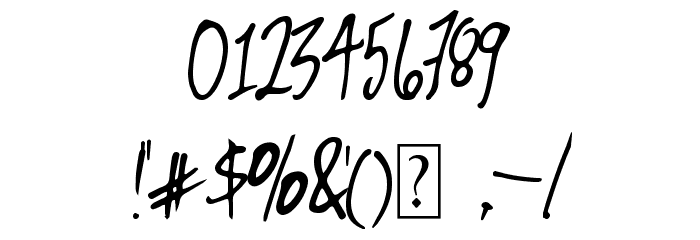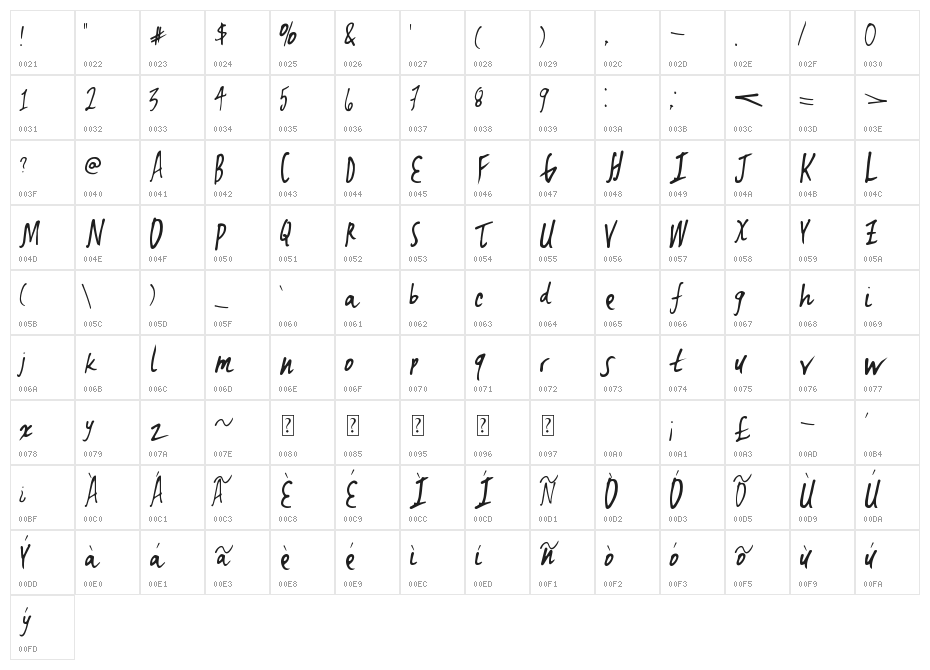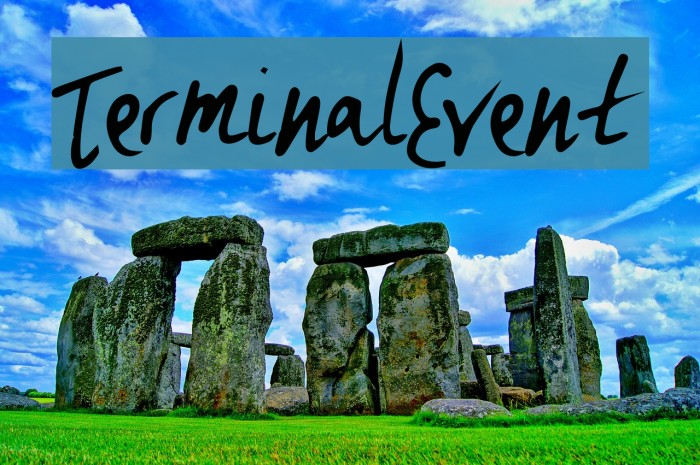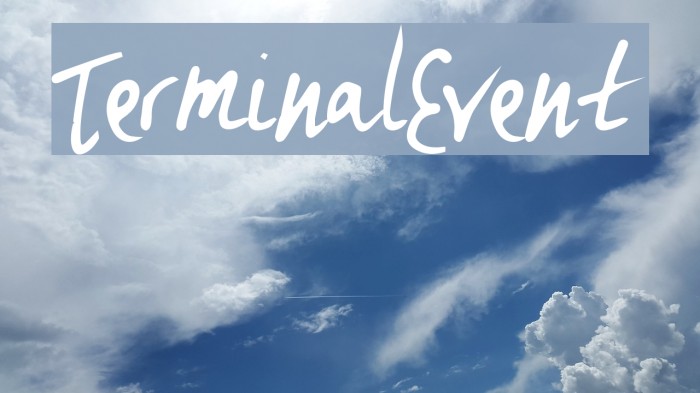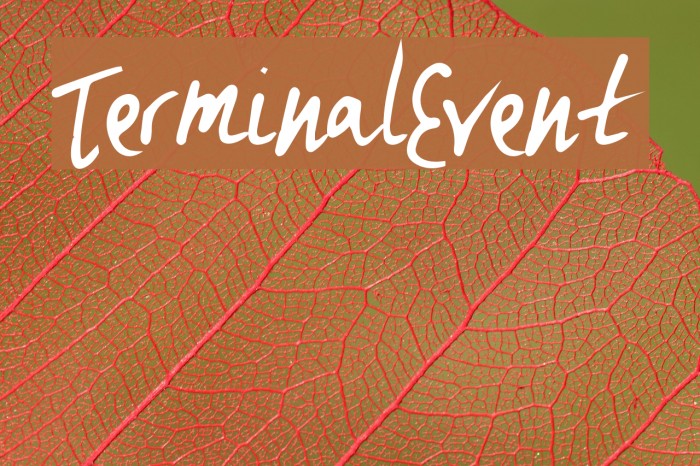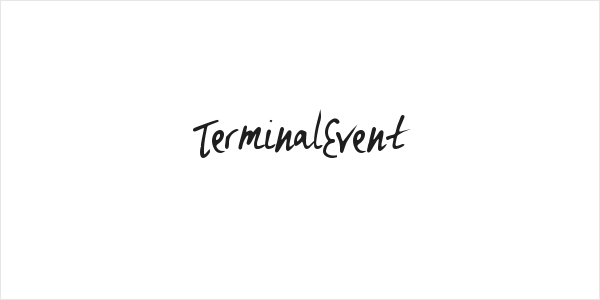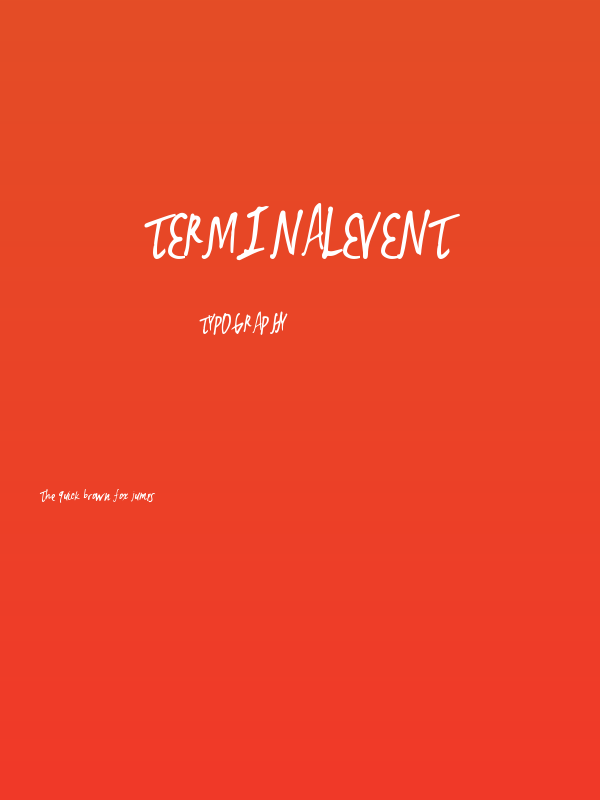
TerminalEvent Font
TerminalEvent Description
This font exhibits a dynamic and energetic handwritten style, characterized by its fluid and slightly irregular strokes. The uppercase letters are tall and narrow, with a noticeable slant that adds a sense of movement and spontaneity. The lowercase letters maintain a consistent flow, with some characters featuring distinctive loops and curves that enhance the font's casual and informal appearance. The numerals are bold and slightly exaggerated, matching the playful nature of the alphabet. Special characters are creatively integrated, maintaining the overall aesthetic. This font's lively and expressive design makes it suitable for projects that require a personal touch.